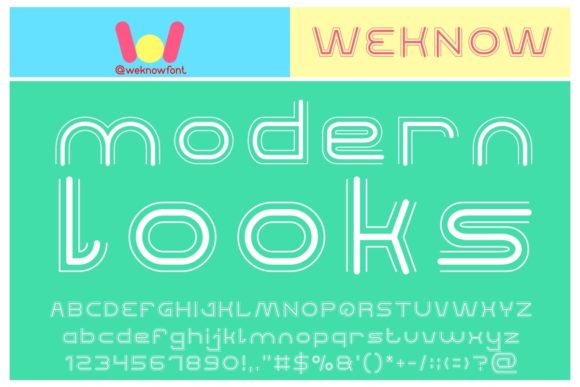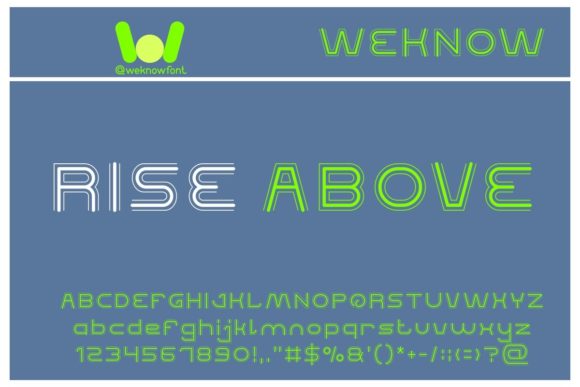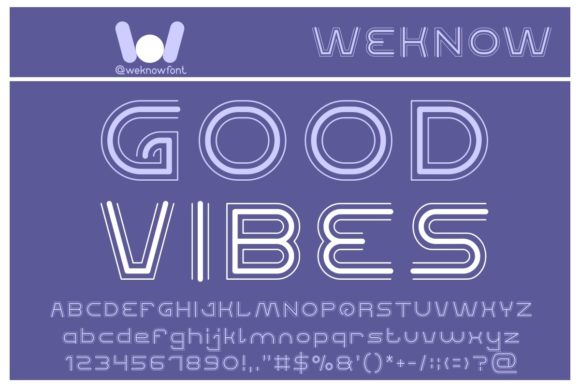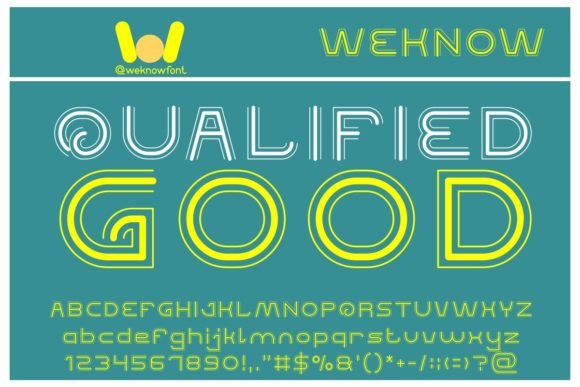
Qualified Good is a cool and retro themed display font.
It is suitable for logos, brand identity, apparel industry, poster, music, movie, game, magazine, book, comic, cartoon, YouTube, Instagram, website, or any of your creative design projects .